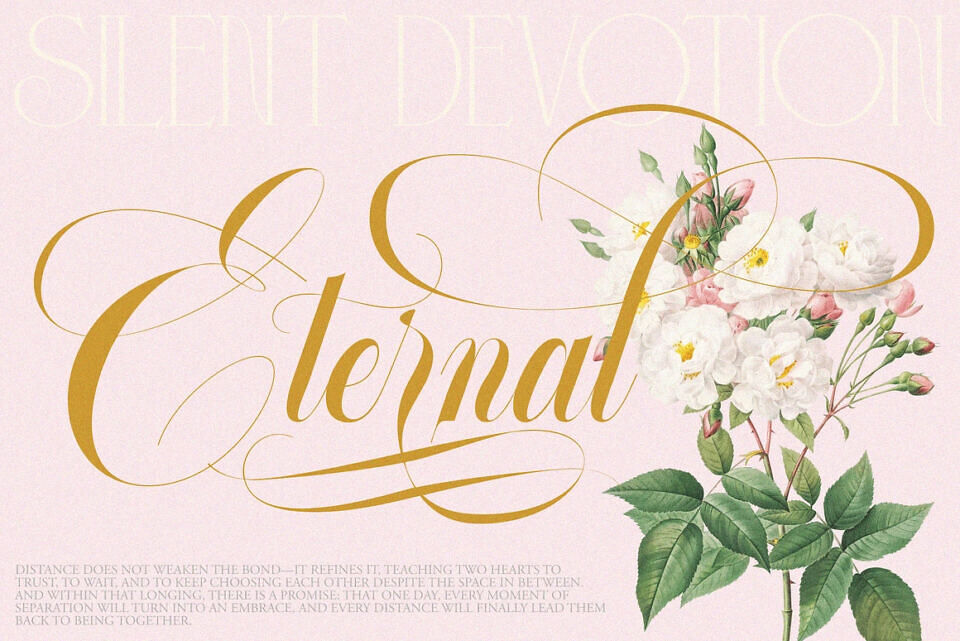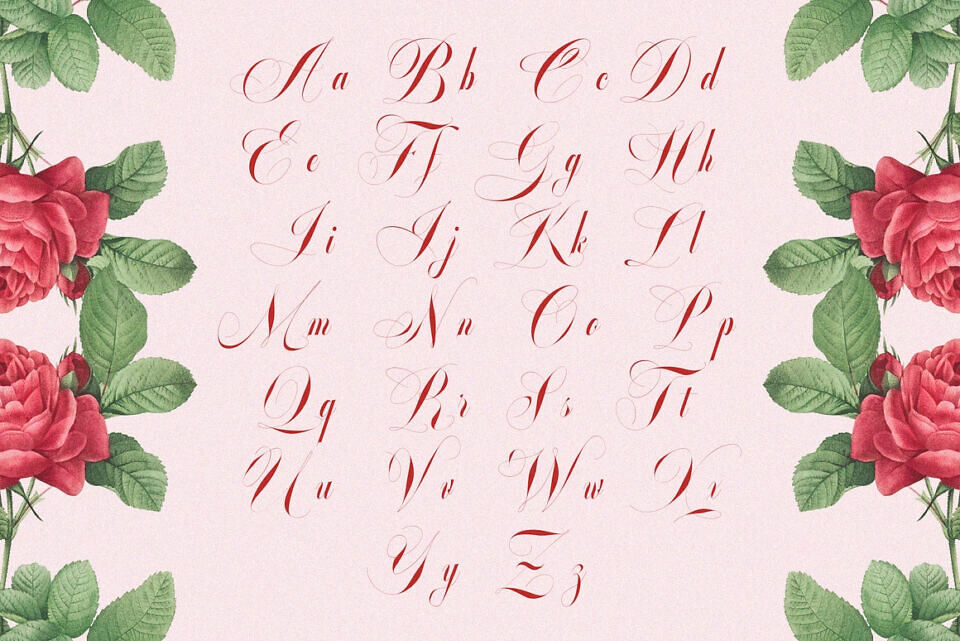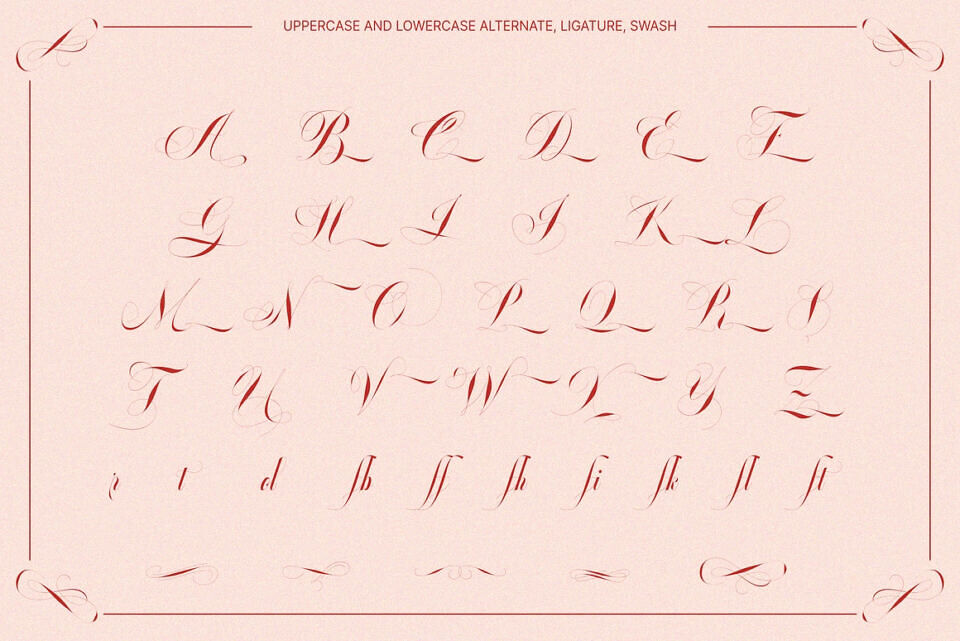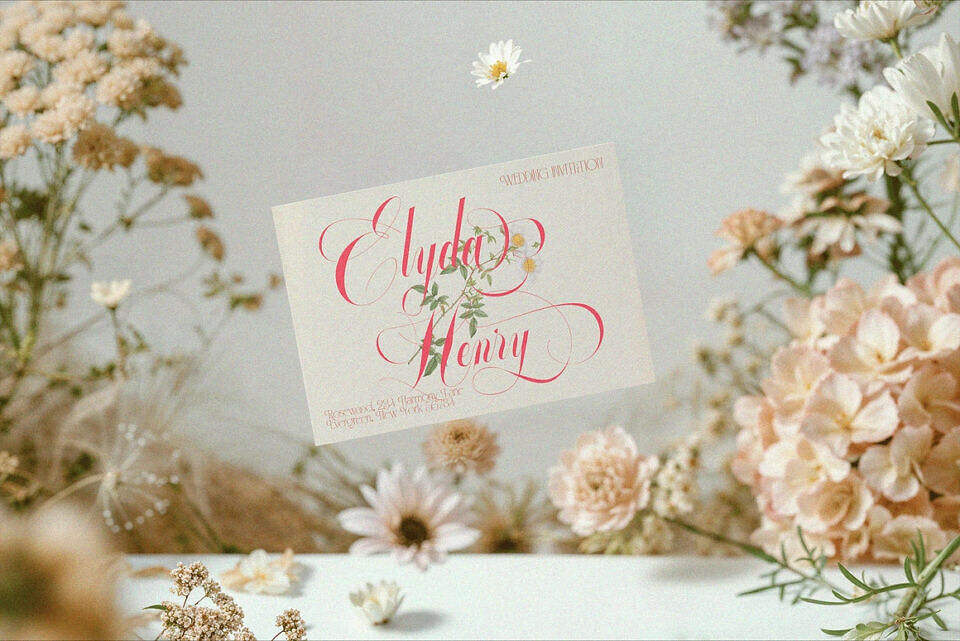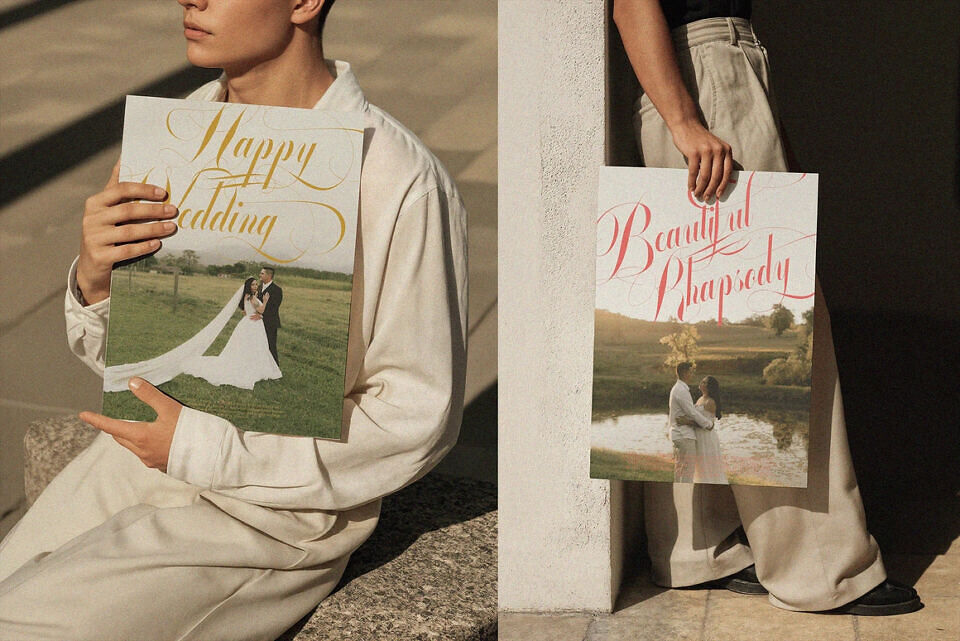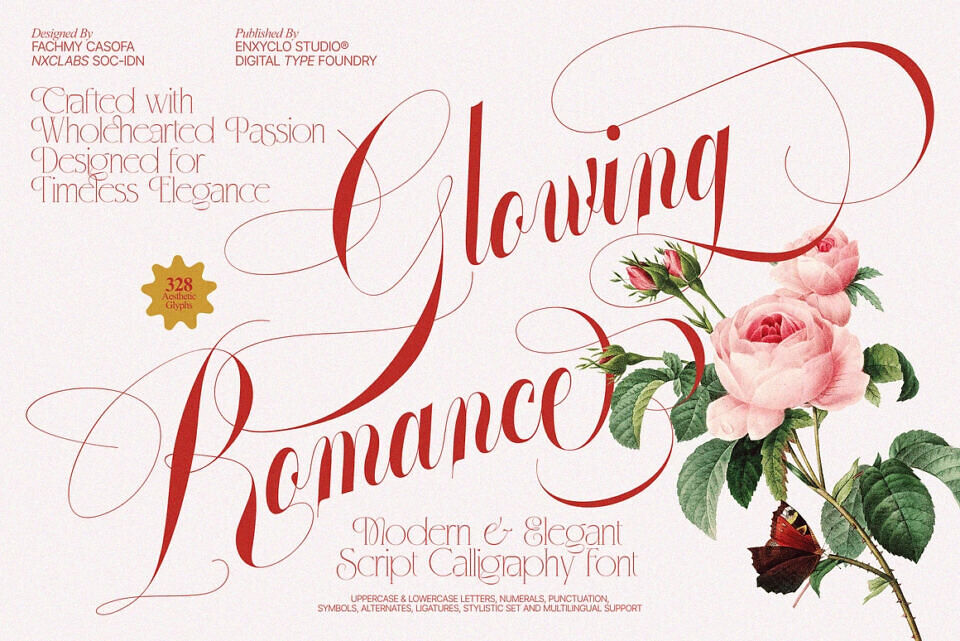
Glowing Romance Font
GLOWING ROMANCE is a timeless modern script calligraphy font that embodies elegance, luxury, and refined beauty. Designed with flowing strokes and graceful curves, it delivers a lavish and premium aesthetic that feels both romantic and sophisticated. Every letter is carefully crafted to create a harmonious balance between bold expression and delicate elegance, making it perfect for high-end visual storytelling.
With its smooth connections and elegant rhythm, GLOWING ROMANCE elevates any logo, brand, or fashion identity with a sense of glamour and exclusivity. This script font captures the essence of luxurious beauty, cosmetic, and skincare branding, offering a rich and aesthetic look that feels both modern and timeless. Its refined calligraphic style adds a touch of fancy charm and graceful personality to every design.